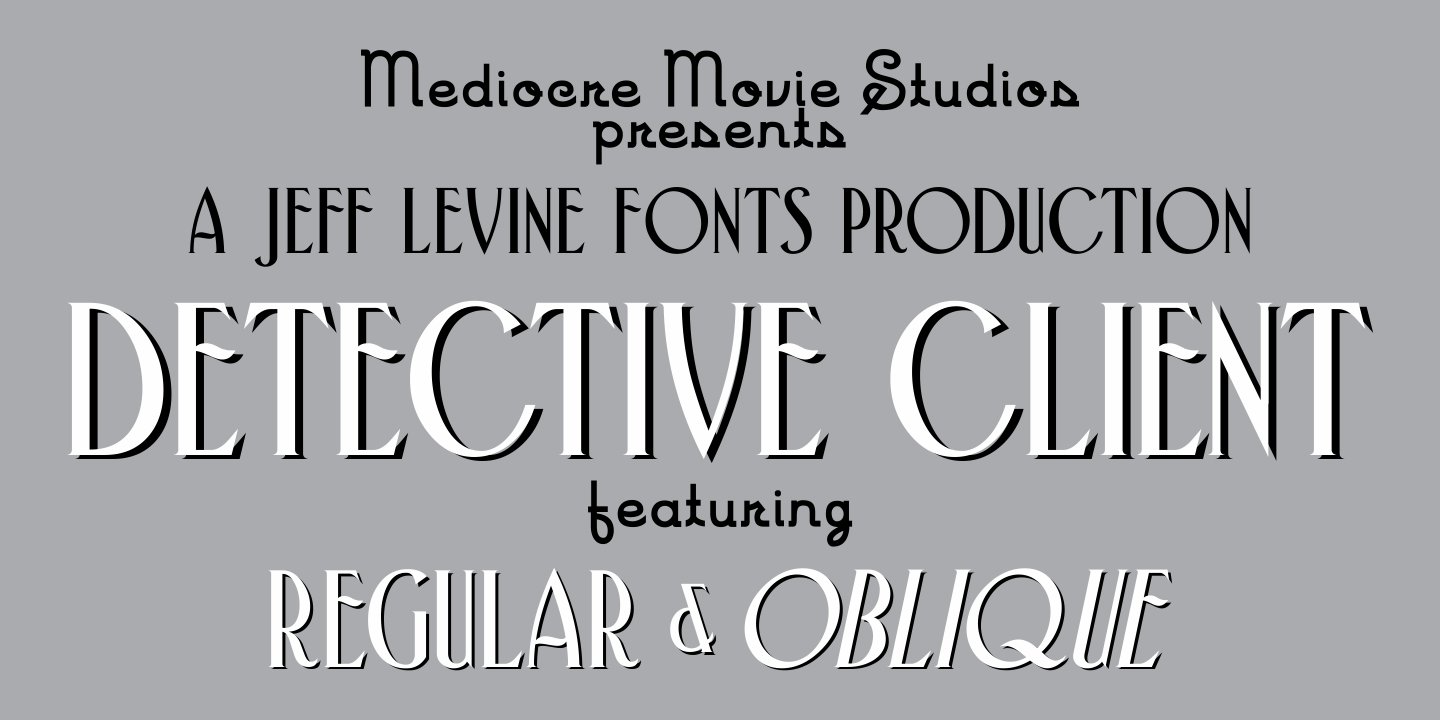
Detective Client JNL Font Free Download is a sophisticated and stylish serif typeface perfect for projects that demand a classic yet mysterious vibe. Please note: you must purchase a license for commercial use — this font is available as a free download strictly for personal and testing purposes.
Ideal for book covers, posters, branding, editorial design, and invitations, Detective Client JNL Font Free Download adds an air of intrigue and elegance to your creative work.
What makes this font exciting is its clean, sharp serifs combined with a subtle vintage flair, evoking the feeling of classic detective novels and noir aesthetics.
The Detective Client JNL font family includes Regular and Italic styles, offering versatility for varied typographic needs.